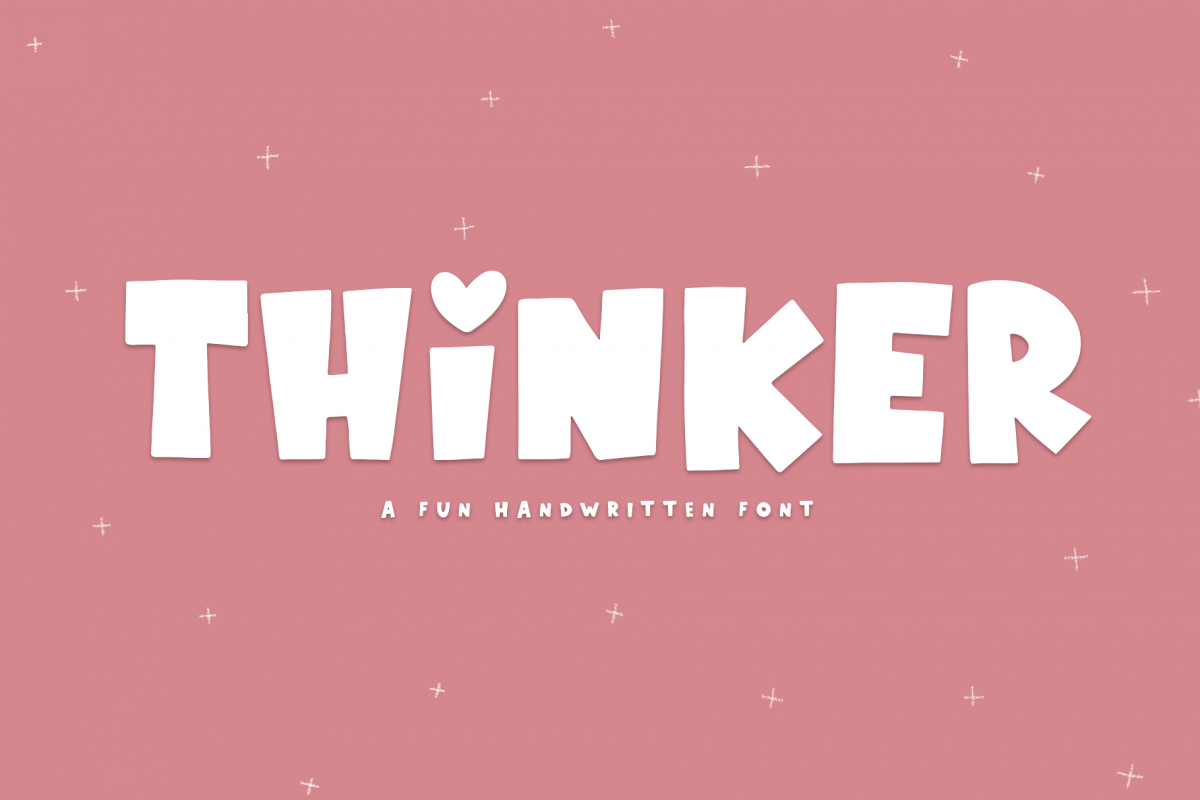
Thinker - A Fun Handwritten Font
Thinker
Thinker is a handwritten font with big, quirky letters. It is an ALL CAPS font.
The lowercase and capital letter "i" alternate between a heart and a regular dot.